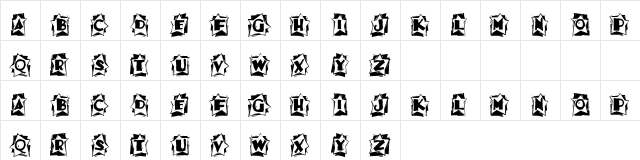
Star Backs Regular
Design Context for Star Backs Typeface
Star Backs is a composed and adaptable typeface that performs quietly and consistently across a wide range of design contexts.